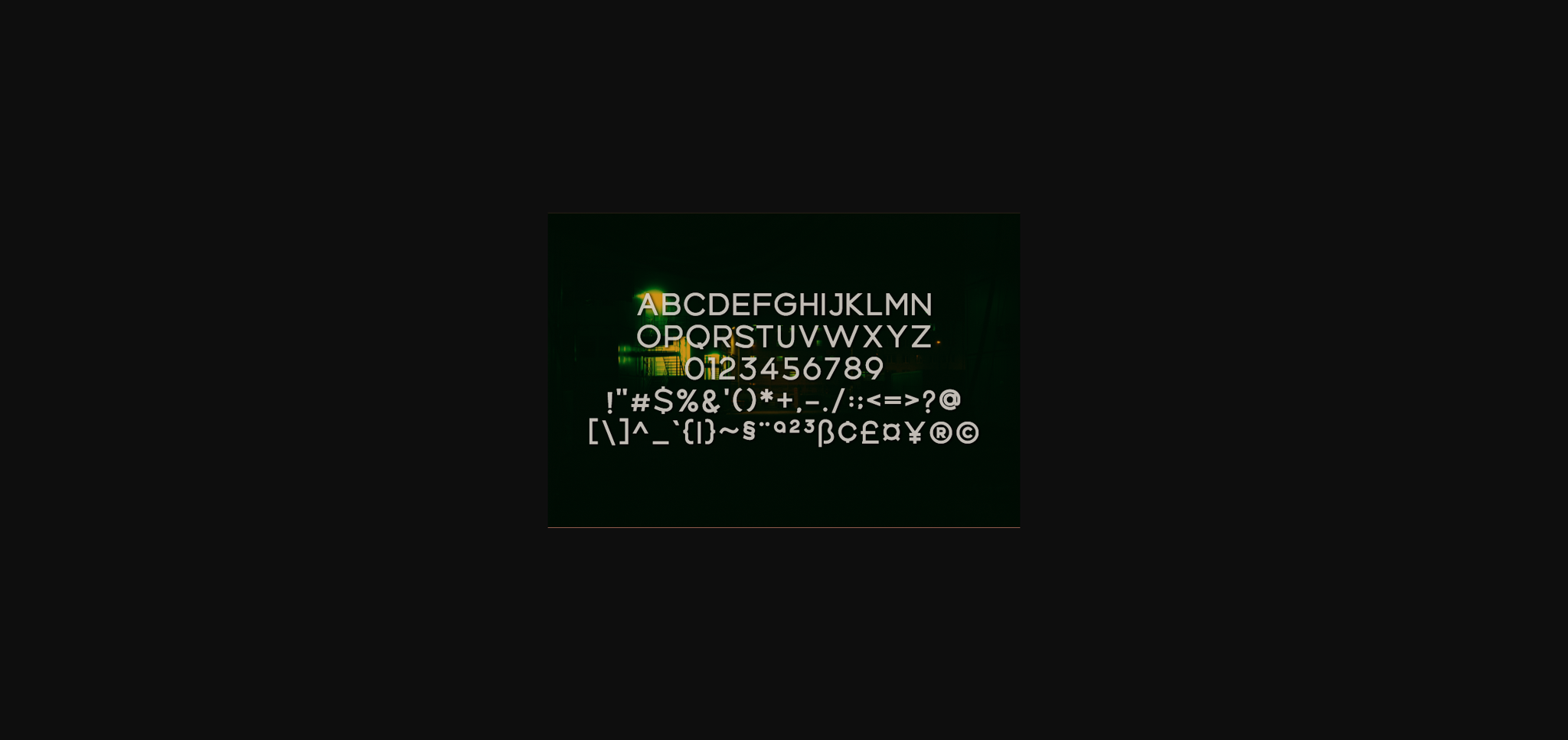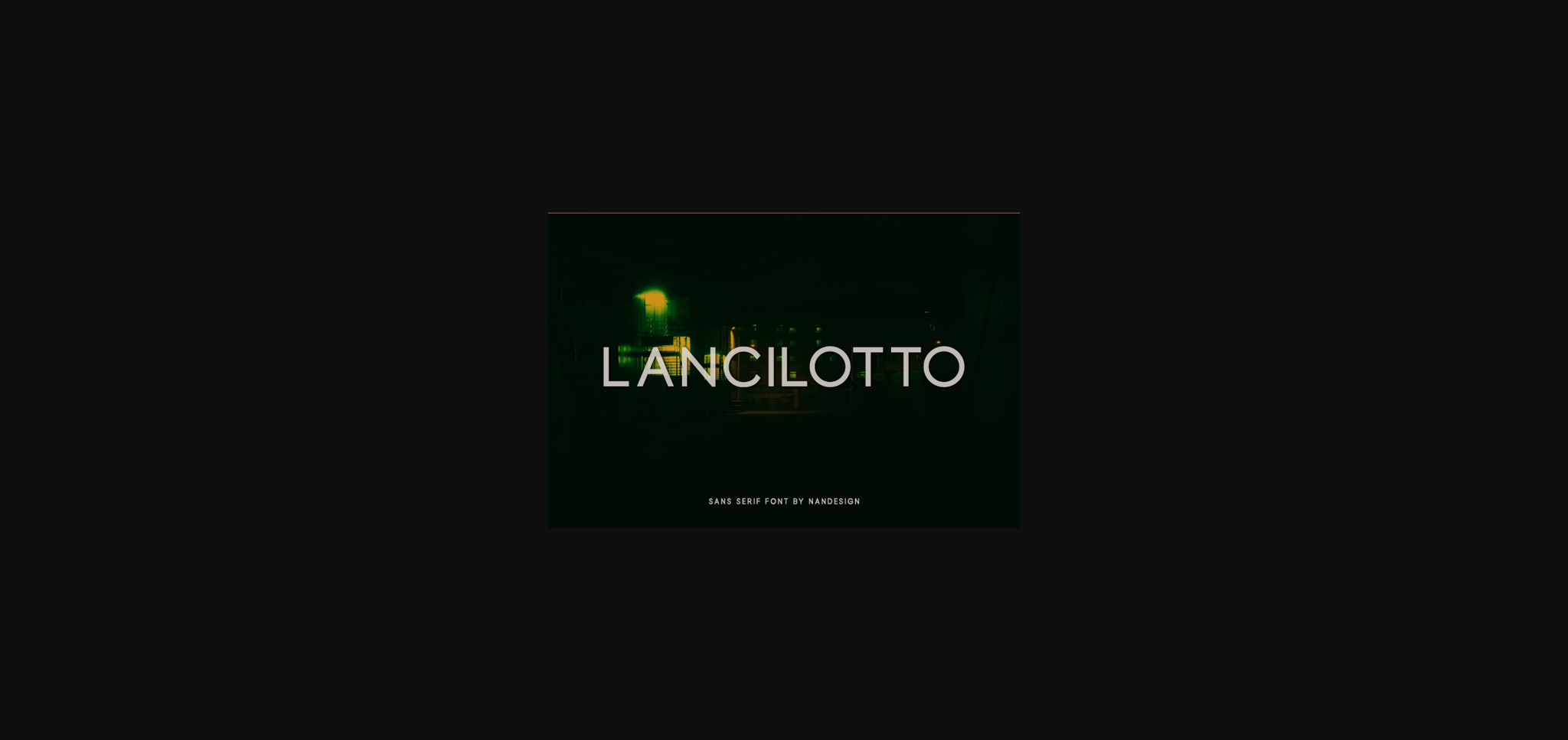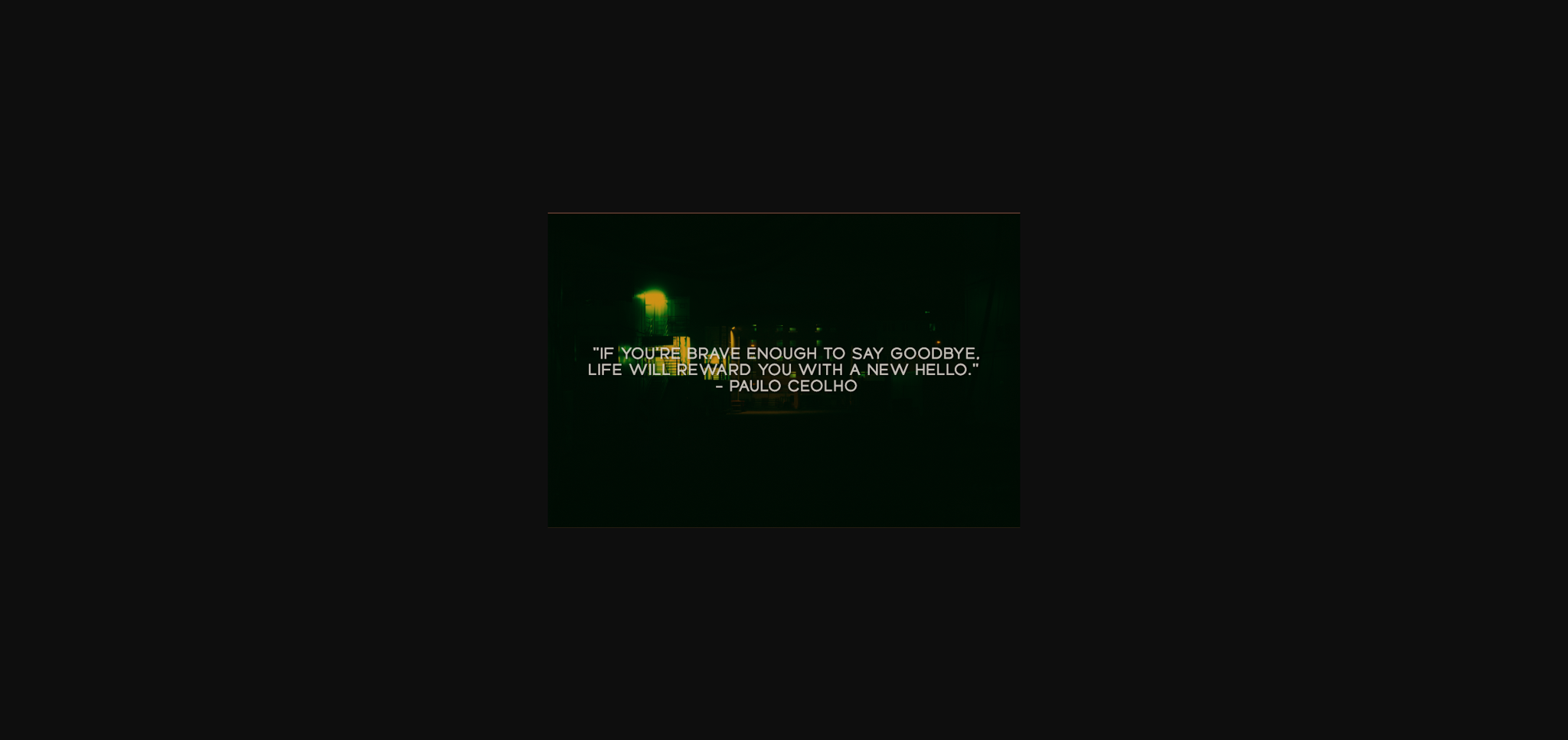
About Lancilotto Font
Lancilotto is a minimal and useful sans serif font. It can be used for various purposes such as logos, invitations, headings, t-shirts, letterhead, signage, labels, news, posters, badges and so much more.